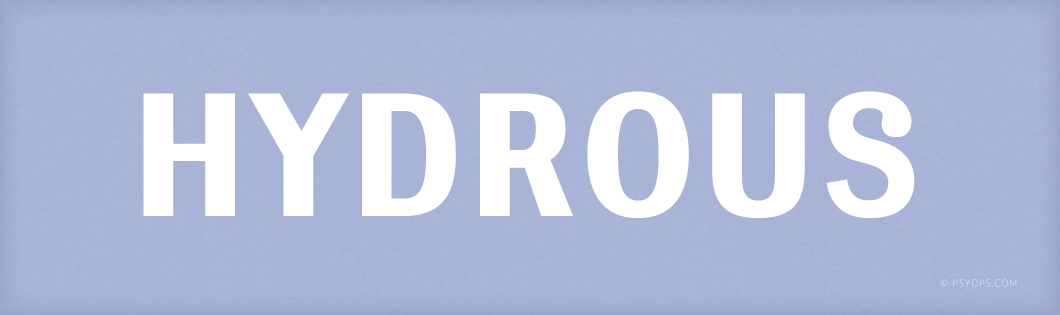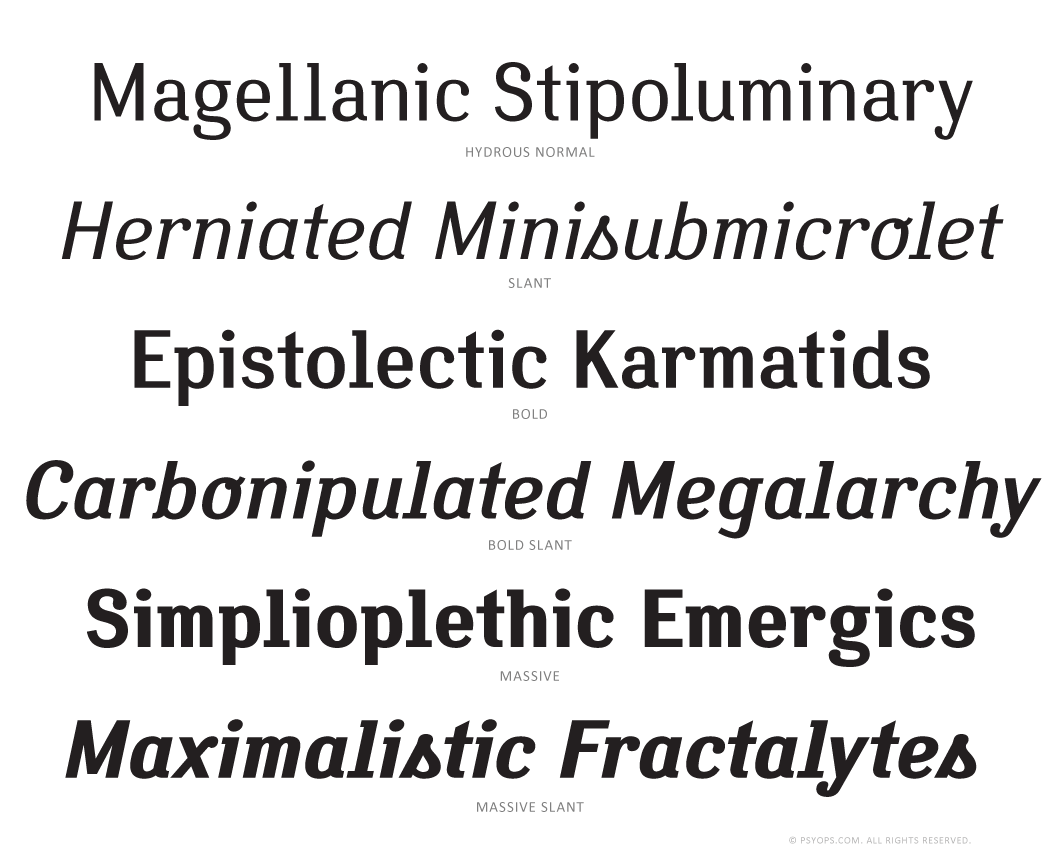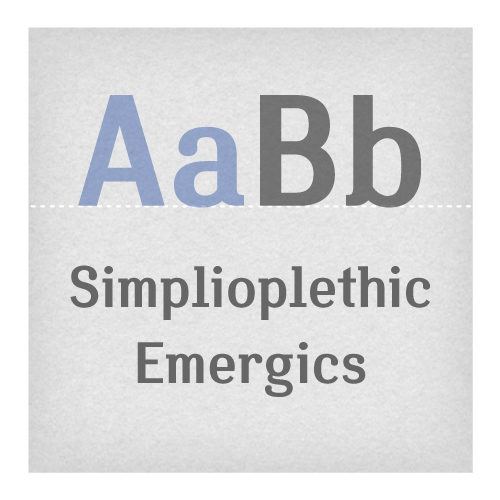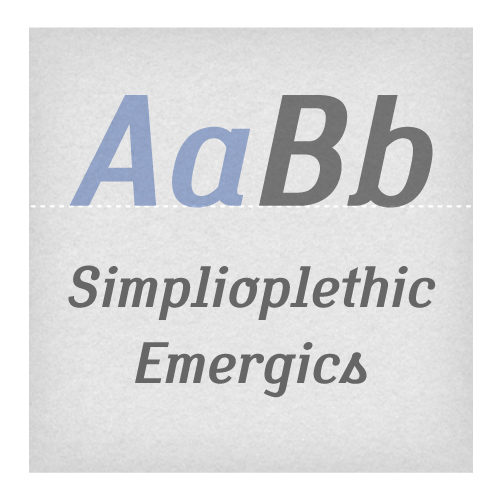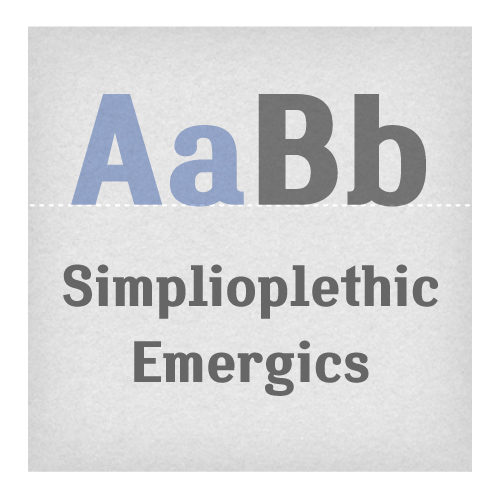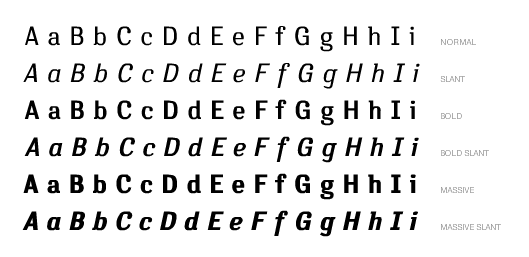
[typography font=”Cantarell” size=”18″ size_format=”px” color=”#d15326″]HYDROUS BY ANUTHIN WONGSUNKAKON[/typography]
This all-terrain typeface brings a soft disposition to an otherwise industrial framework. Variable serifs and ball finials keep the design from taking itself too seriously while reinforced stems and strokes ensure a strong run at any typographic scale. Available in three weights with matching italics.
The Hydrous fonts include: Western and Eastern European characters, Stylistic Alternates, ligatures, and more.